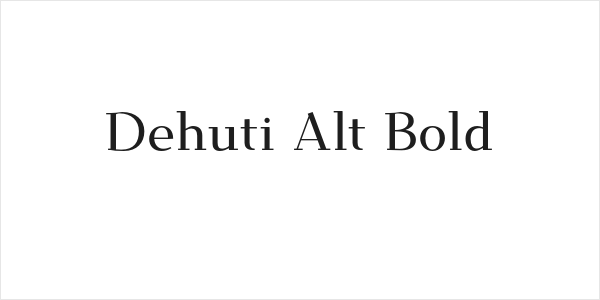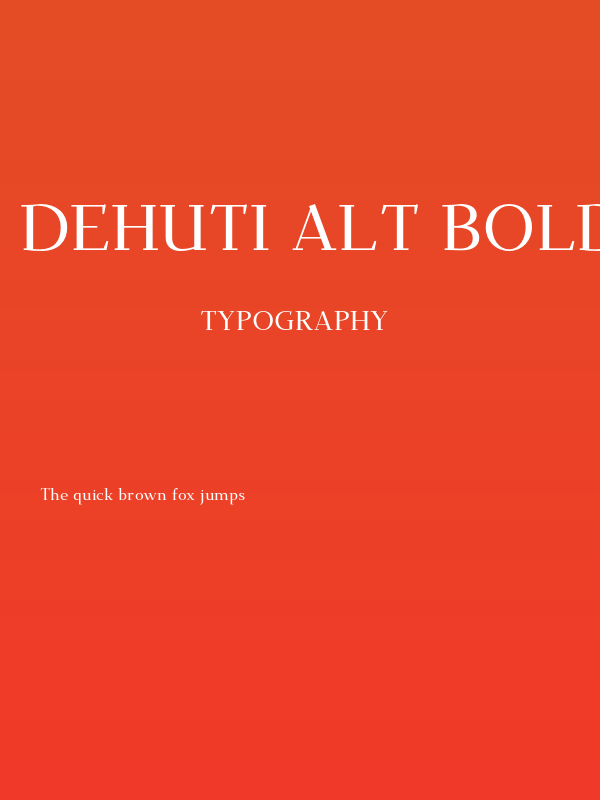
Dehuti Alt Bold Font
Dehuti Alt Bold Description
This font features a classic serif style with a modern twist, characterized by its elegant and refined letterforms. The uppercase letters are tall and commanding, while the lowercase letters maintain a balanced and harmonious appearance. The numerals are distinct and easily readable, making them suitable for both formal and contemporary designs. The special characters are well-integrated, offering versatility for various design needs. The overall design exudes sophistication, making it ideal for projects that require a touch of elegance and professionalism.
| Proposed Projects | Ideal for editorial design, book covers, branding, and luxury product packaging. |